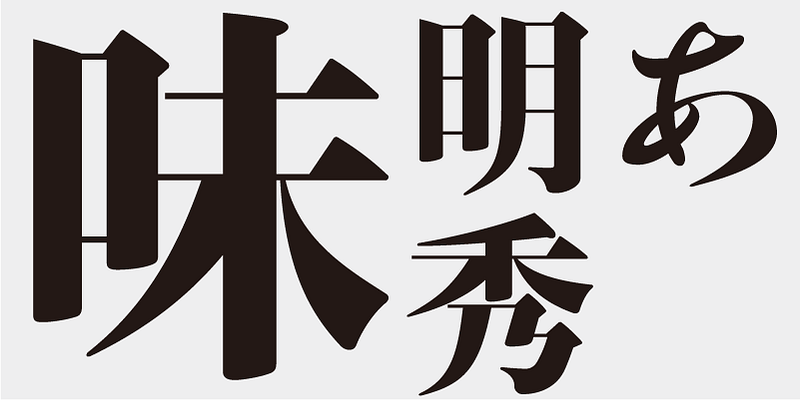
AB Ajimin Modern Syu/EB Font Free Download is a contemporary take on the traditional Japanese Mincho-style serif, offering a bold, expressive tone rooted in heritage yet refreshed for modern aesthetics. The “Syu” (酒) suggests cultural richness—possibly inspired by sake labels or traditional packaging—while “EB” indicates Extra Bold weight, making it perfect for display use. The “Modern” variant in this family infuses the classic Mincho structure with cleaner, updated detailing and refined geometric flow.
AB Ajimin Modern Syu/EB Font Free Download features high contrast between thick and thin strokes, crisp verticals, and elegant horizontal lines, with polished serifs that blend calligraphic warmth and typographic precision. It’s ideal for projects such as high-end branding, luxury product packaging, Japanese restaurant signage, sake bottles, or cultural editorials where tradition meets contemporary style.
Supporting Hiragana, Katakana, Kanji, and Latin characters, it’s also well-suited for bilingual design, especially in print or digital work that values strong visual identity and cultural context.
Bold, elegant, and culturally refined—AB Ajimin Modern Syu/EB is your ideal typeface for sophisticated Japanese typography with a modern twist.